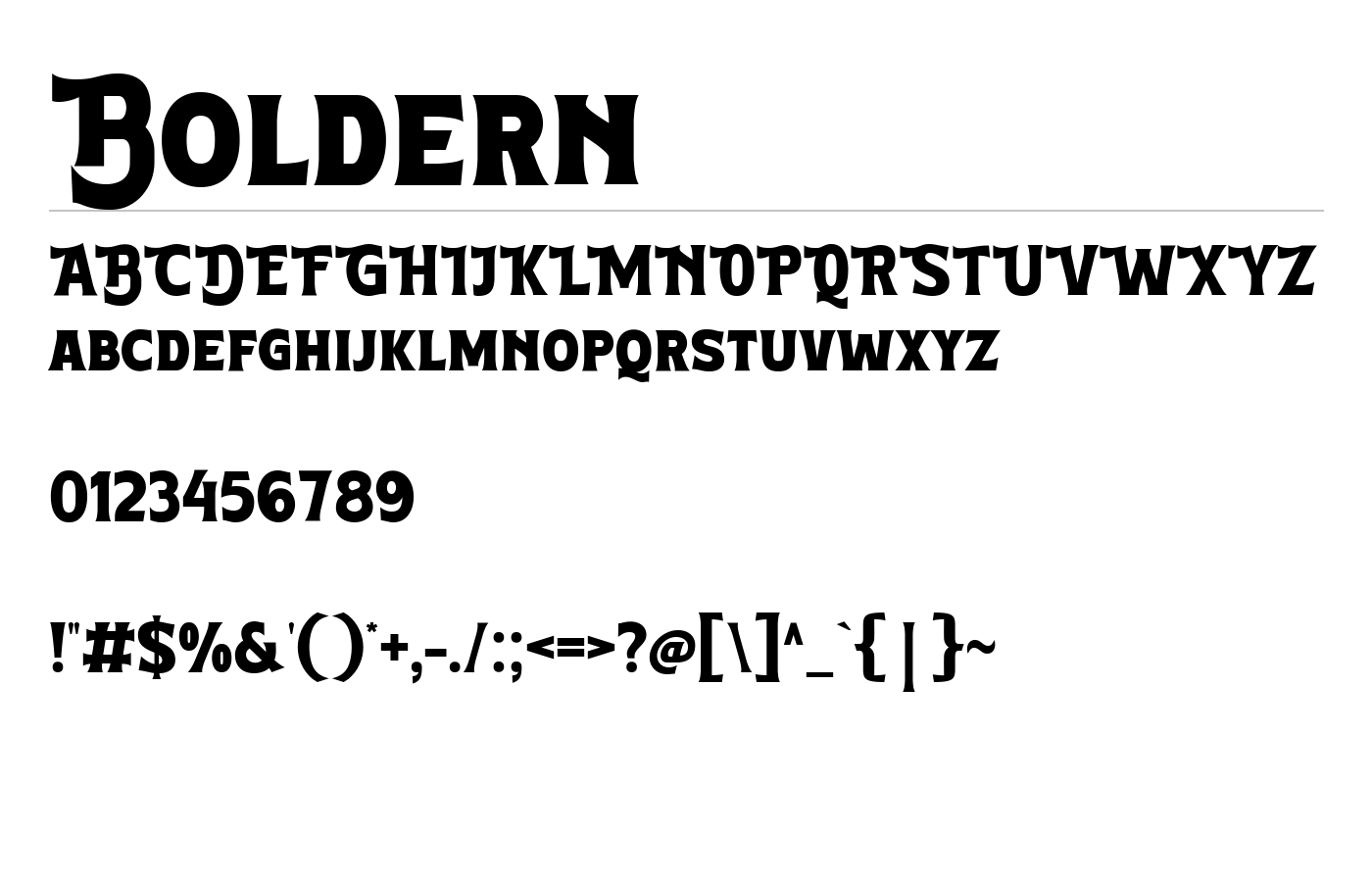
Boldern is a bold slab serif font with a strong, vintage character and striking thick-and-thin contrasts that give it a dramatic yet playful feel. Its unique letterforms, including sharp serifs and stylized details, make it perfect for eye-catching headlines, logos, and branding that seek to convey strength and personality. This font works well in creative projects where a bold, memorable impression is desired.
Boldern Font
About Boldern Font
| Designer | Burhan Afif |